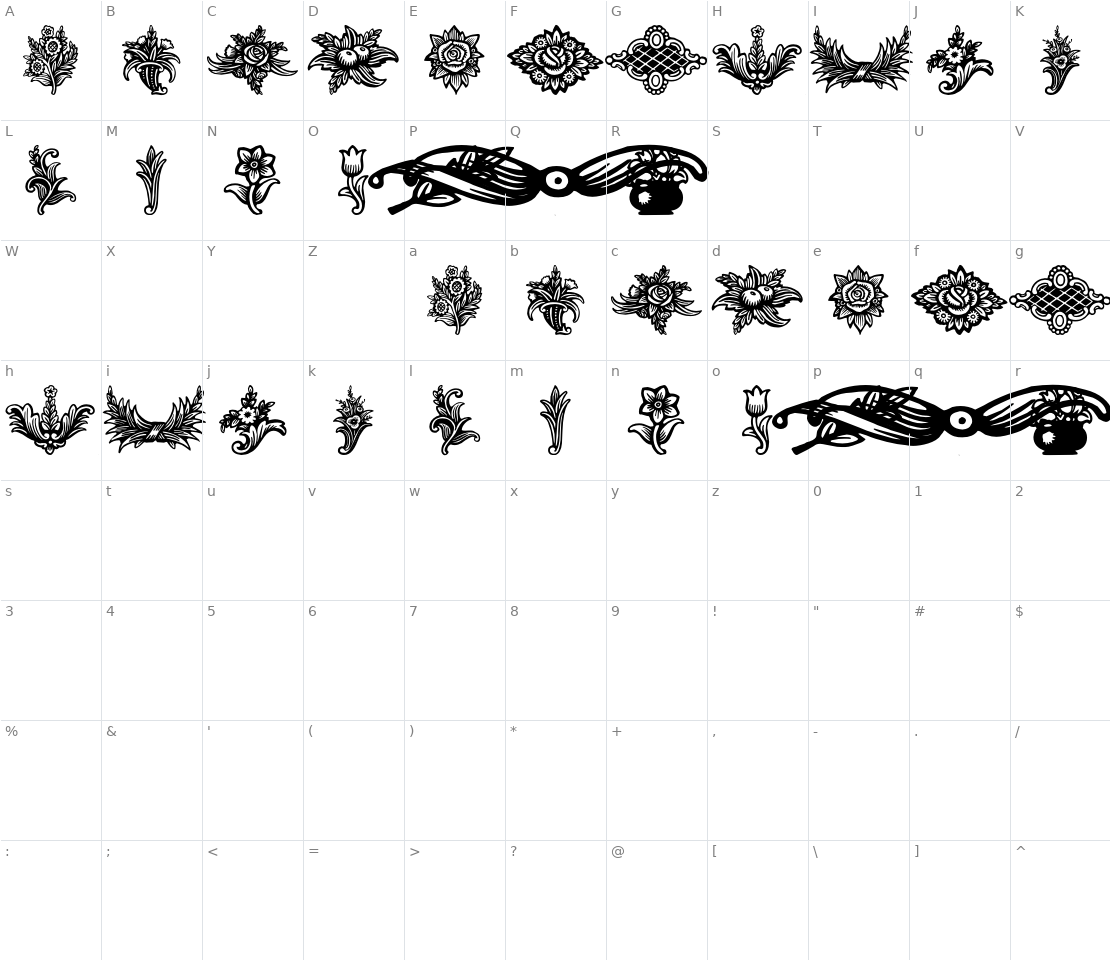
Schluss Vignetten
Schluss Vignetten is a collection of ornamental vignettes by Dieter Steffmann, drawn in the style of classical engraved botanical illustrations. Each glyph is a detailed floral or nature motif, the kind of decorative element you'd find in 18th- and 19th-century book typography as section dividers, title page embellishments, or endpiece flourishes. Useful anywhere you need authentic vintage ornamentation without having to source individual engravings.